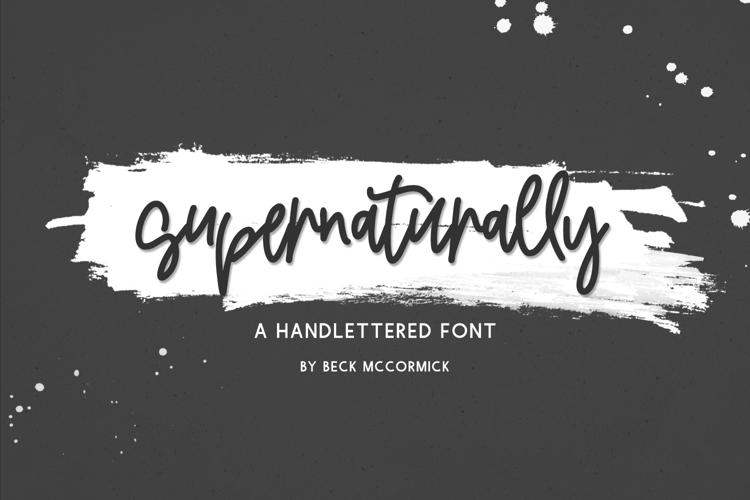
Supernaturally Script
Introducing Supernaturally, a modern handlettered font. Supernaturally is a monoline font, is slightly messy & quirky, and features extra characters to customize the look of your text!
Supernaturally includes:
- 26 alternate characters
- 14 ligatures: bb, cc, dd, ee, ff, gg, ll, mm, nn, oo, pp, rr, ss, tt